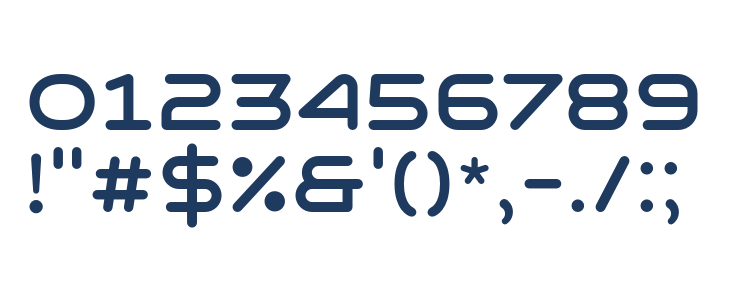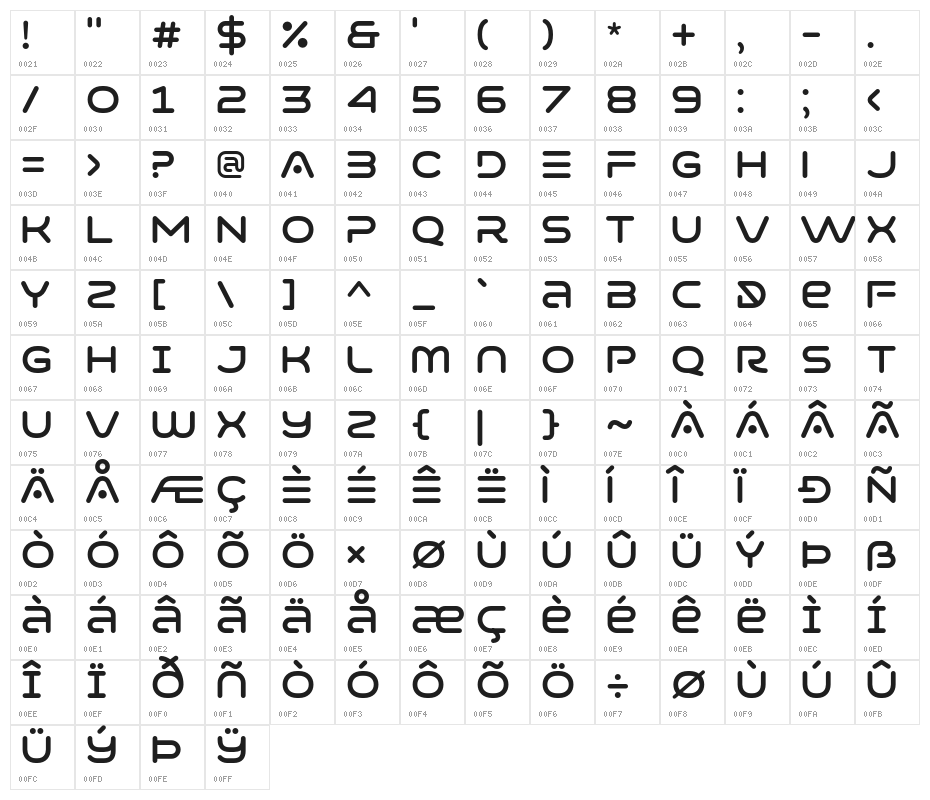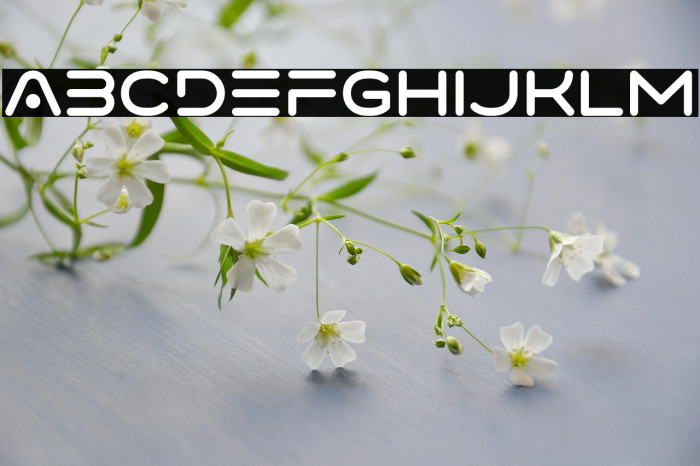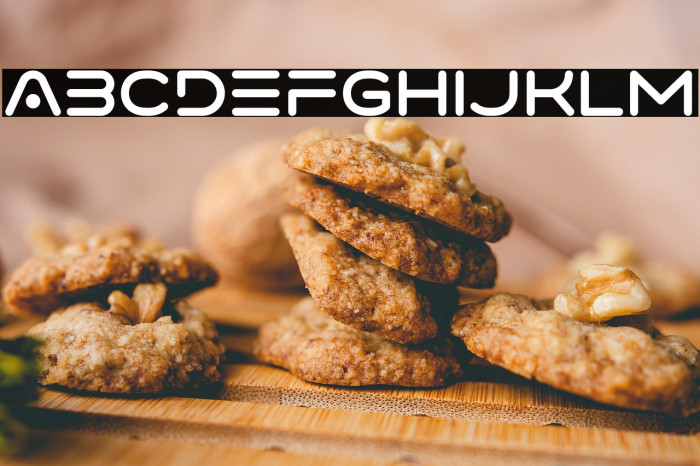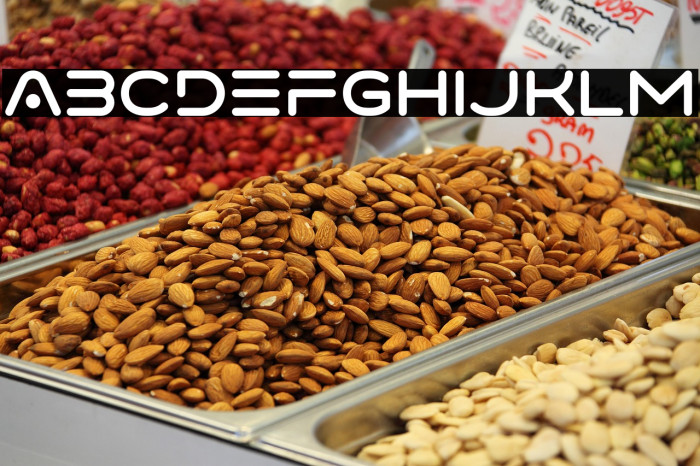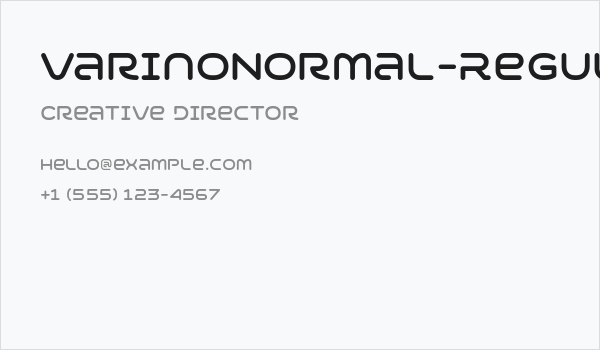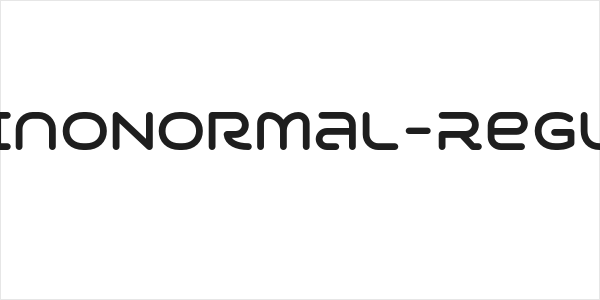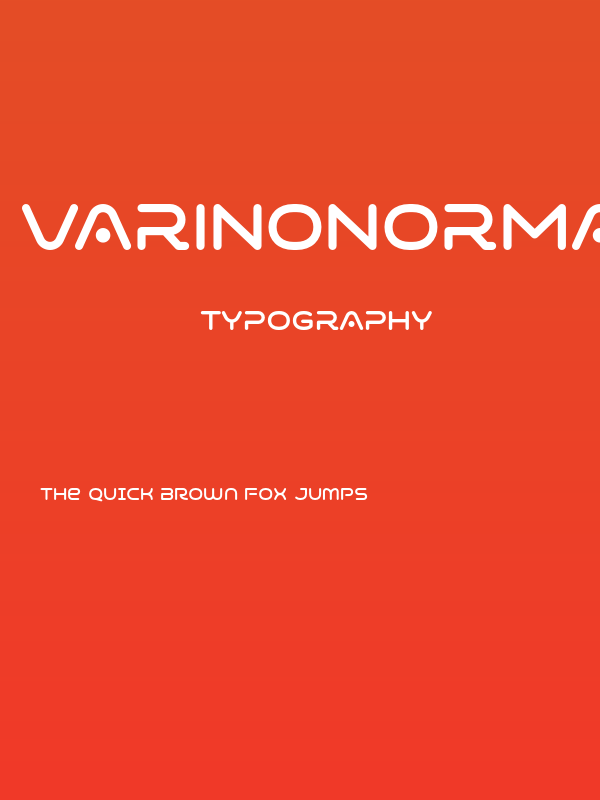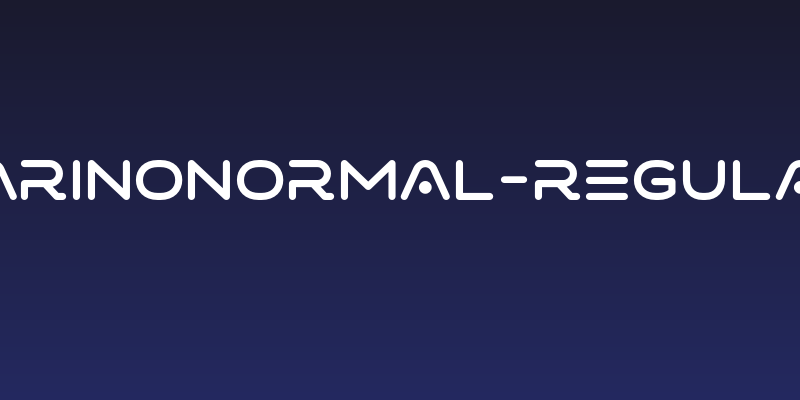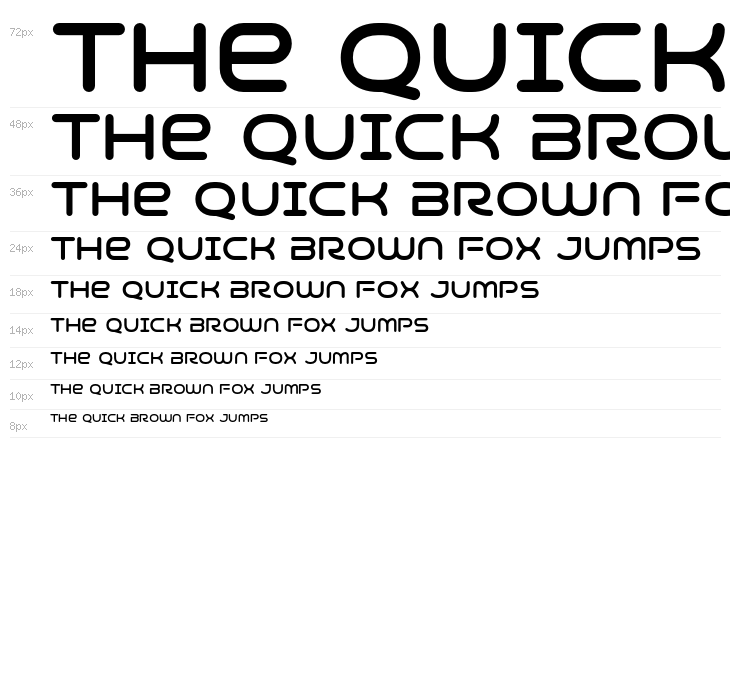
VarinoNormal-Regular Font
VarinoNormal-Regular Description
This font features a modern, geometric design with rounded edges and a clean, streamlined appearance. The characters are uniformly structured, providing a sense of balance and harmony. The uppercase and lowercase letters maintain a consistent style, with a slight futuristic touch that is evident in the smooth curves and straight lines. The numerals and special characters are designed to match the overall aesthetic, making them easily readable and visually appealing. The font's simplicity and clarity make it versatile for various design applications.
| Use Case | Headlines, Logos, Web design |
| Proposed Projects | Ideal for technology branding, modern web design, and futuristic-themed projects. |